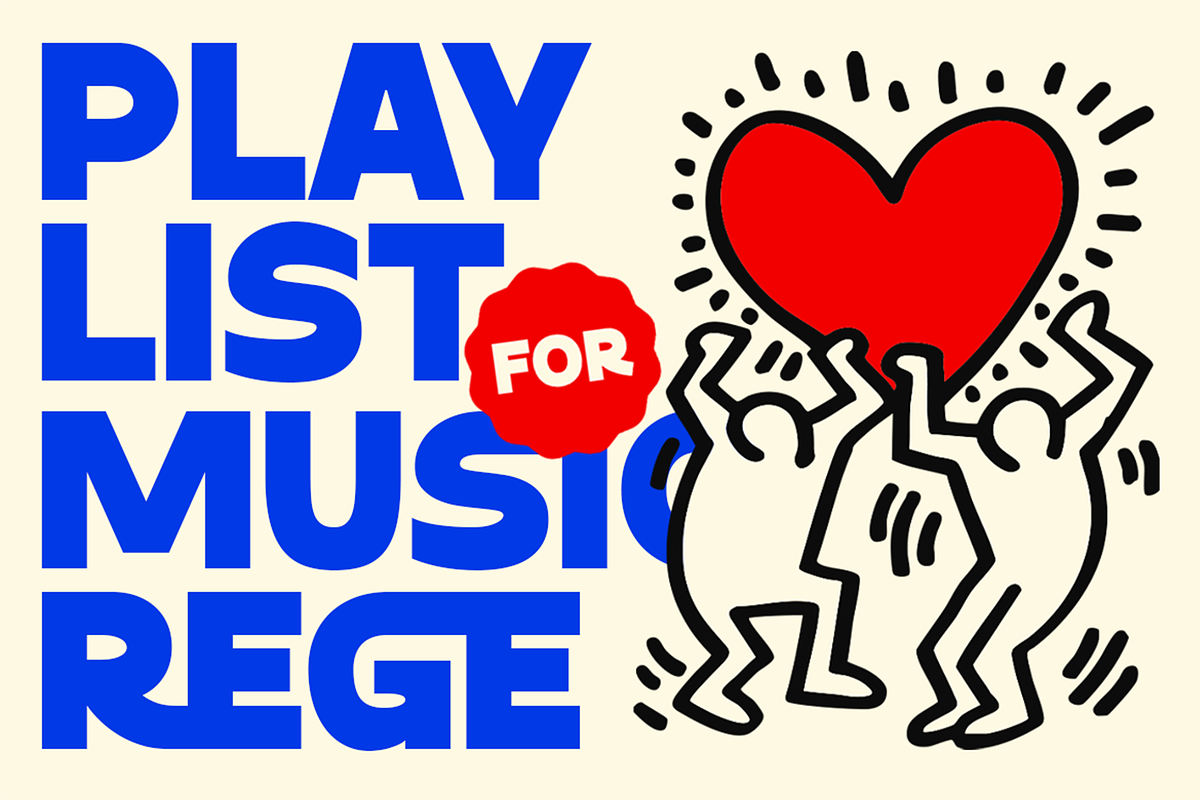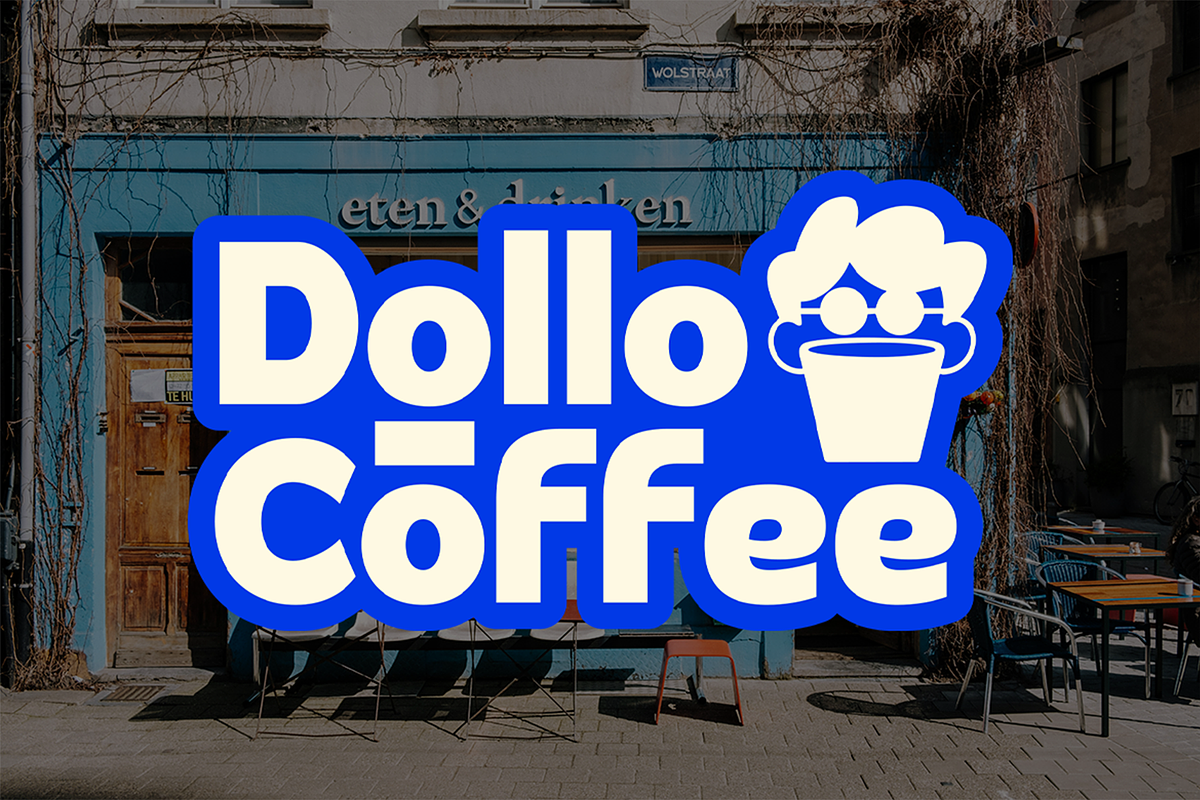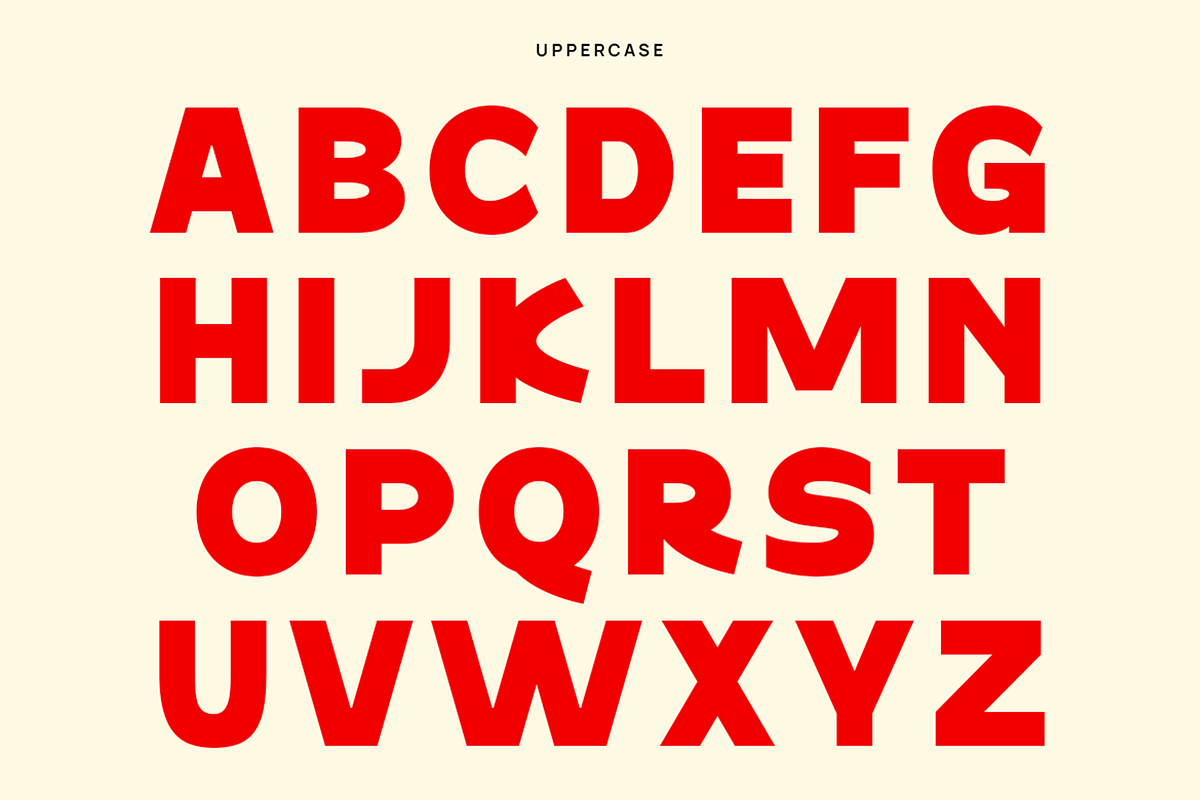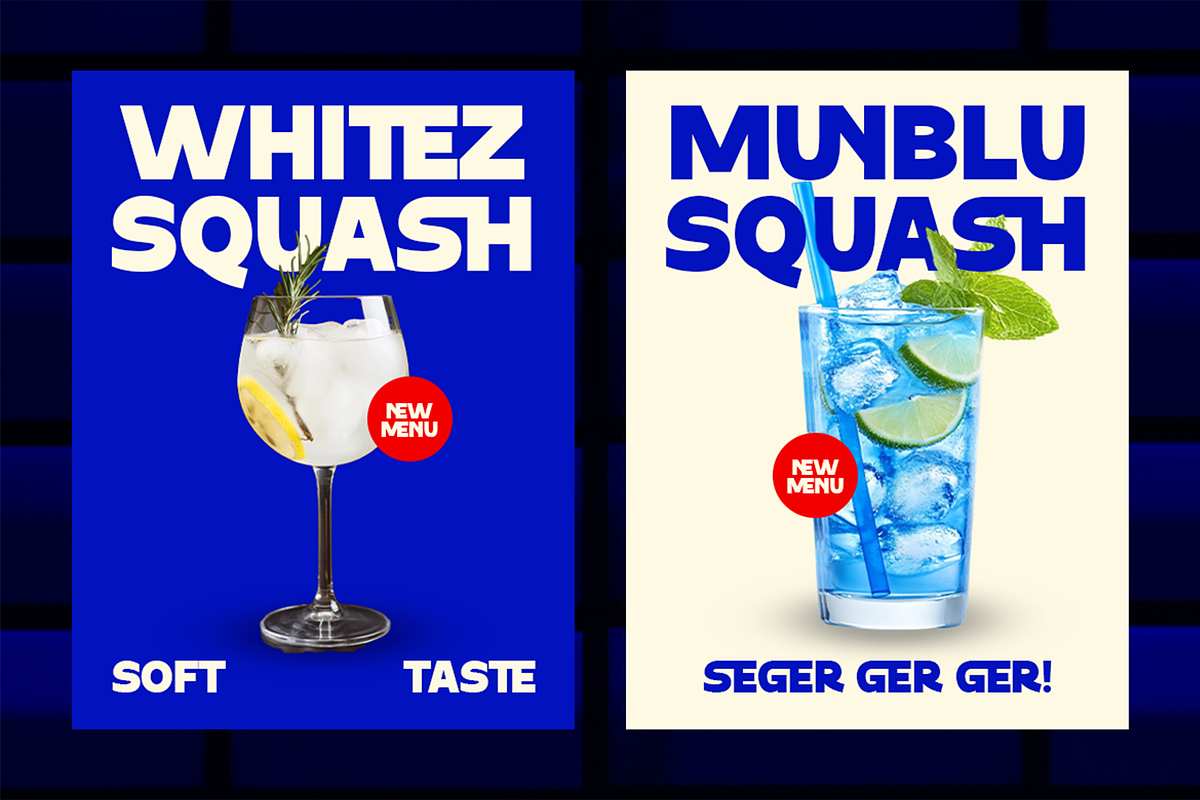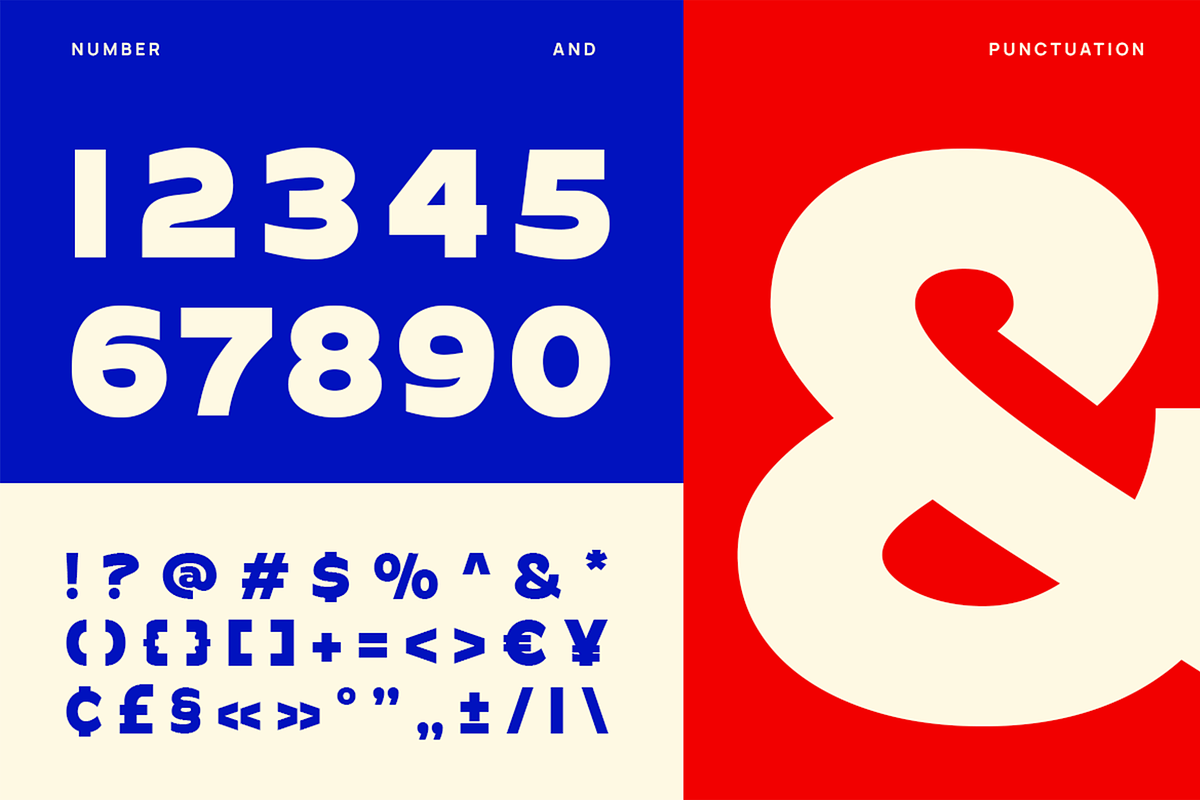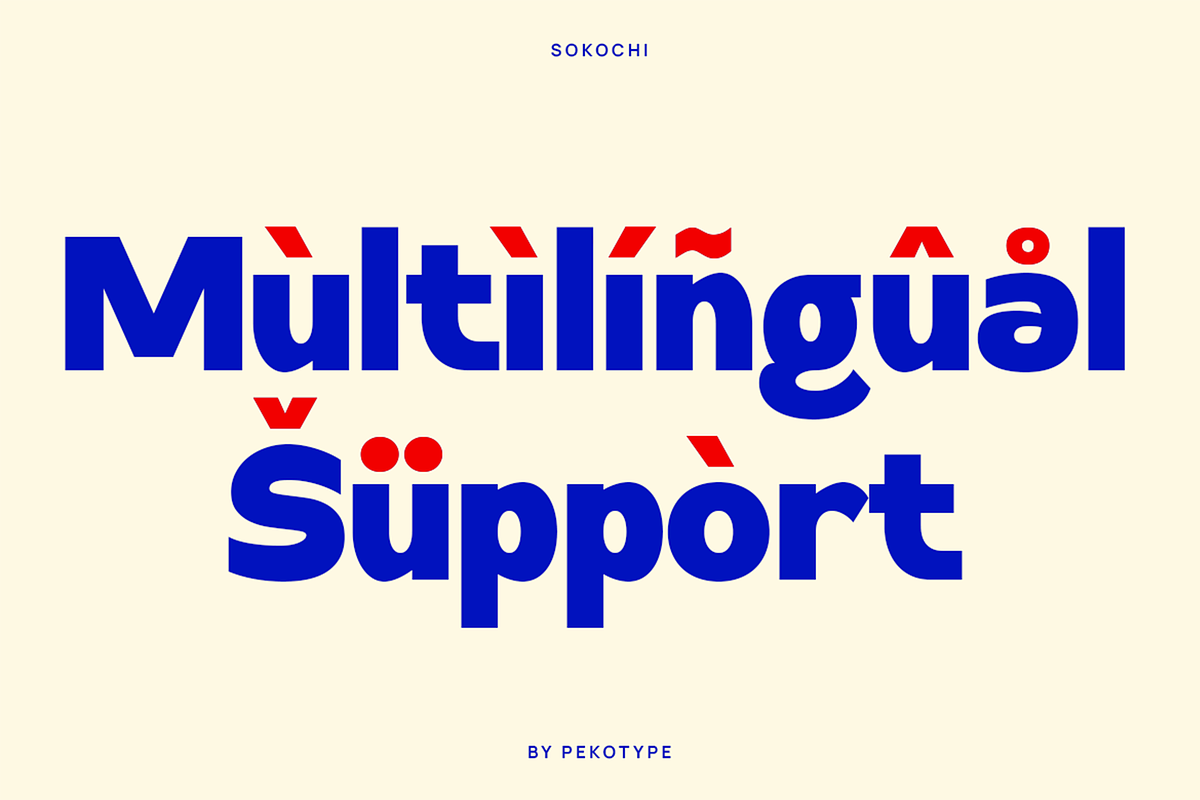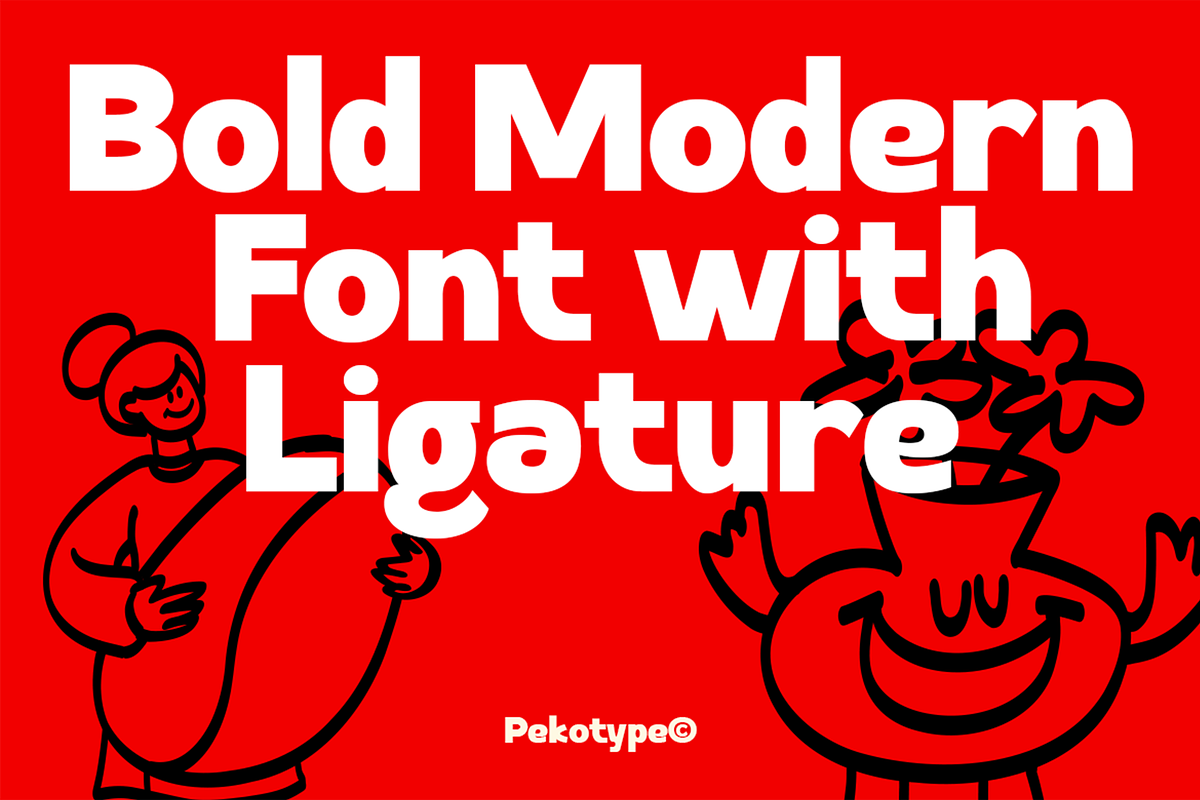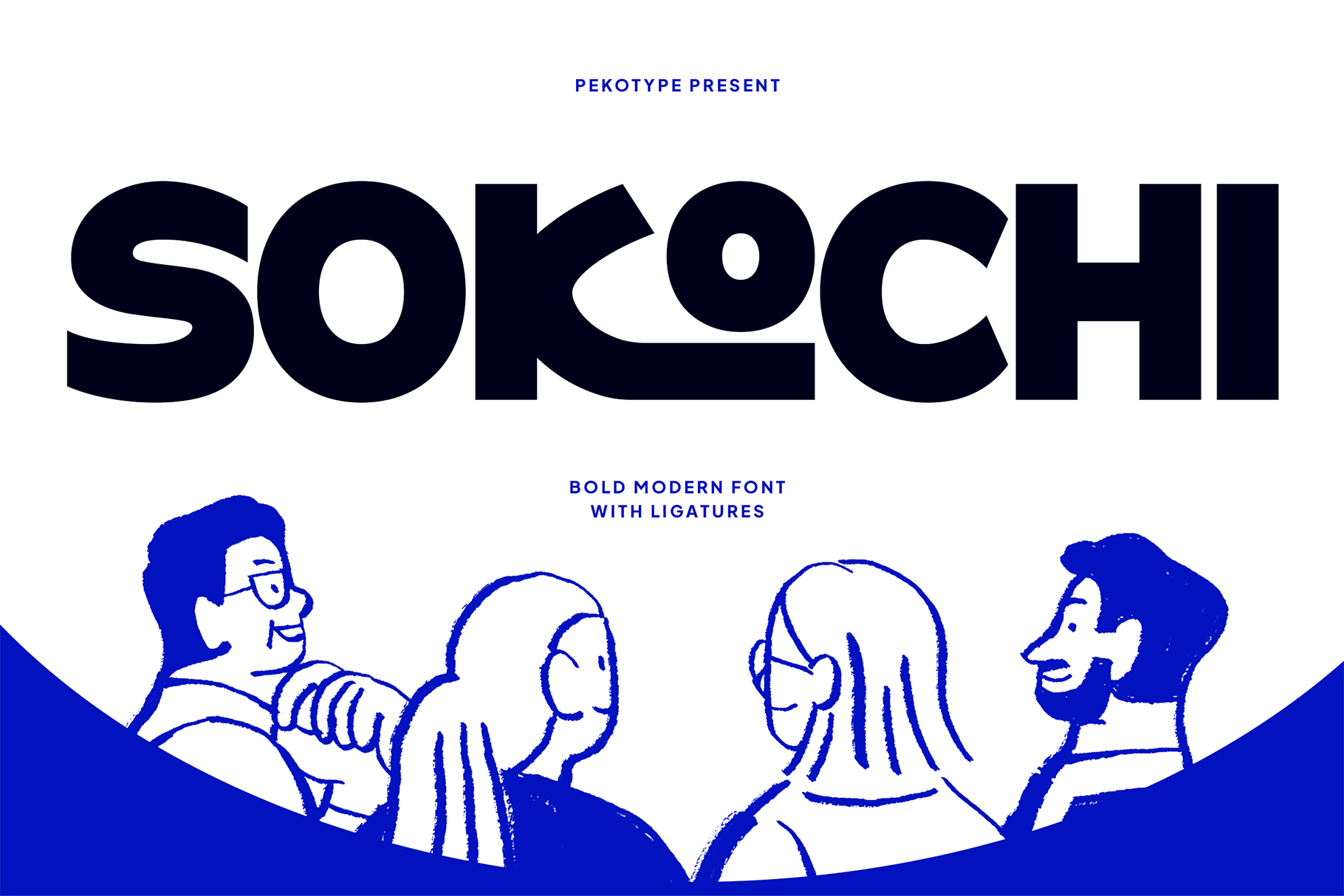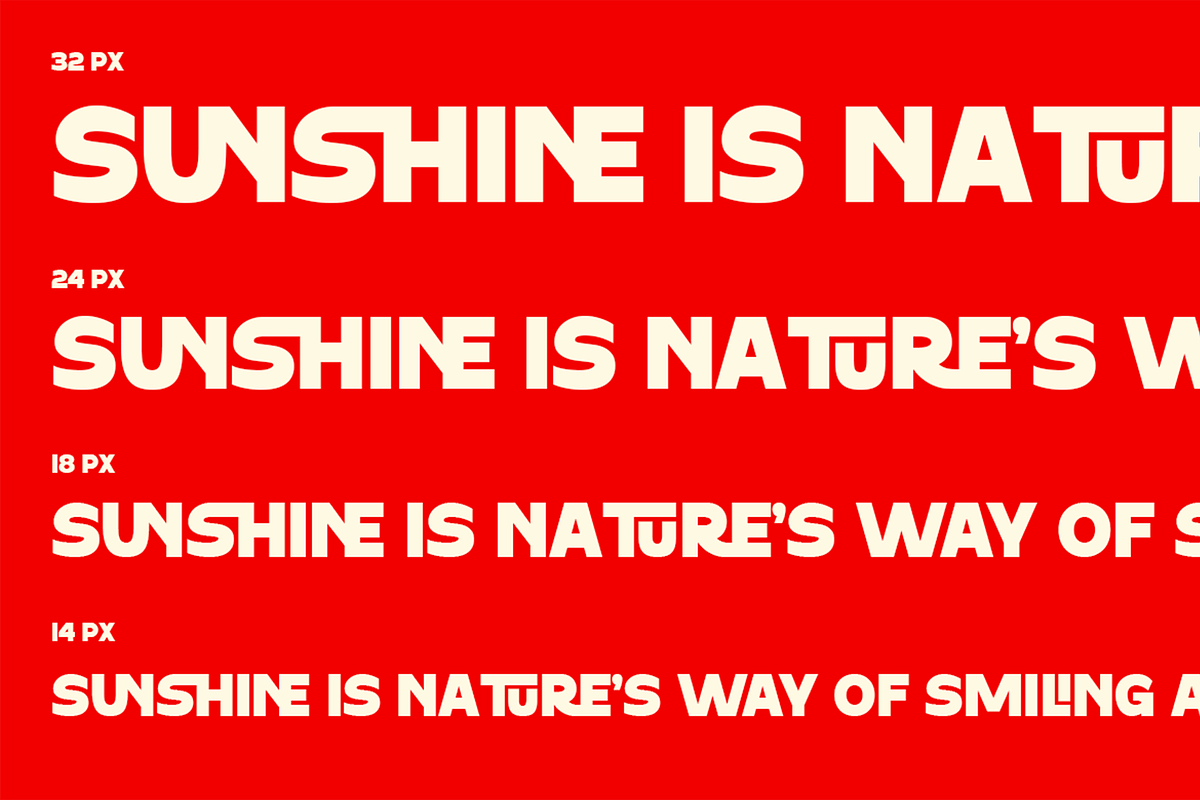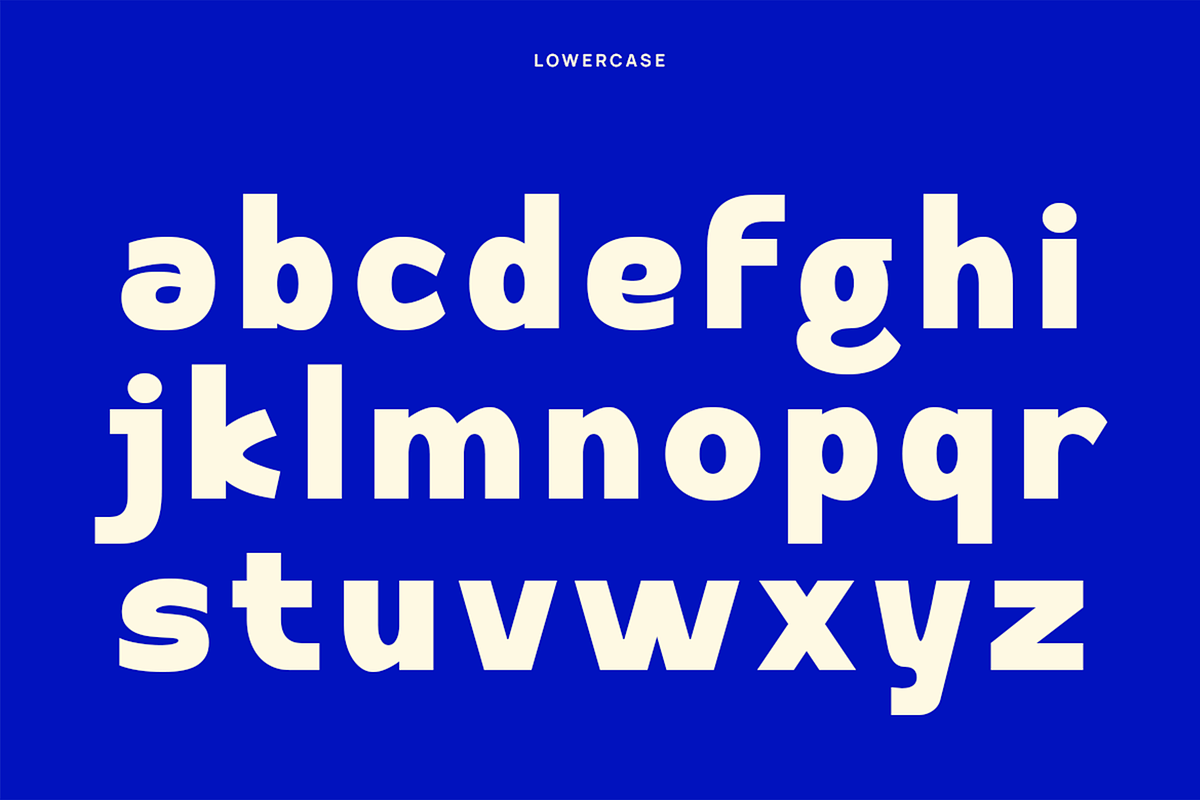
Sokochi - Bold Modern Ligature Font
Sokochi - Bold Modern Font with Ligatures
Meet Sokochi, a bold modern display font designed to make your typography unforgettable. With its strong geometric forms, smooth ligatures, and clean modern aesthetic, Sokochi brings confidence and creativity to every design. Perfect for brands that want to look bold, stylish, and contemporary.
Whether you’re designing logos, posters, packaging, or social media visuals, Sokochi adds a professional and dynamic touch. The font features uppercase and lowercase letters, unique ligature pairs, and full multilingual support — making it versatile for global design needs.
Its bold and balanced letterforms ensure maximum readability while maintaining an artistic edge, ideal for marketing campaigns, product branding, and creative layouts that need to stand out.
If you’re searching for a modern, bold, and ligature-rich font to elevate your next project, Sokochi is your new design essential.
- Number, Symbol, & Punctuation